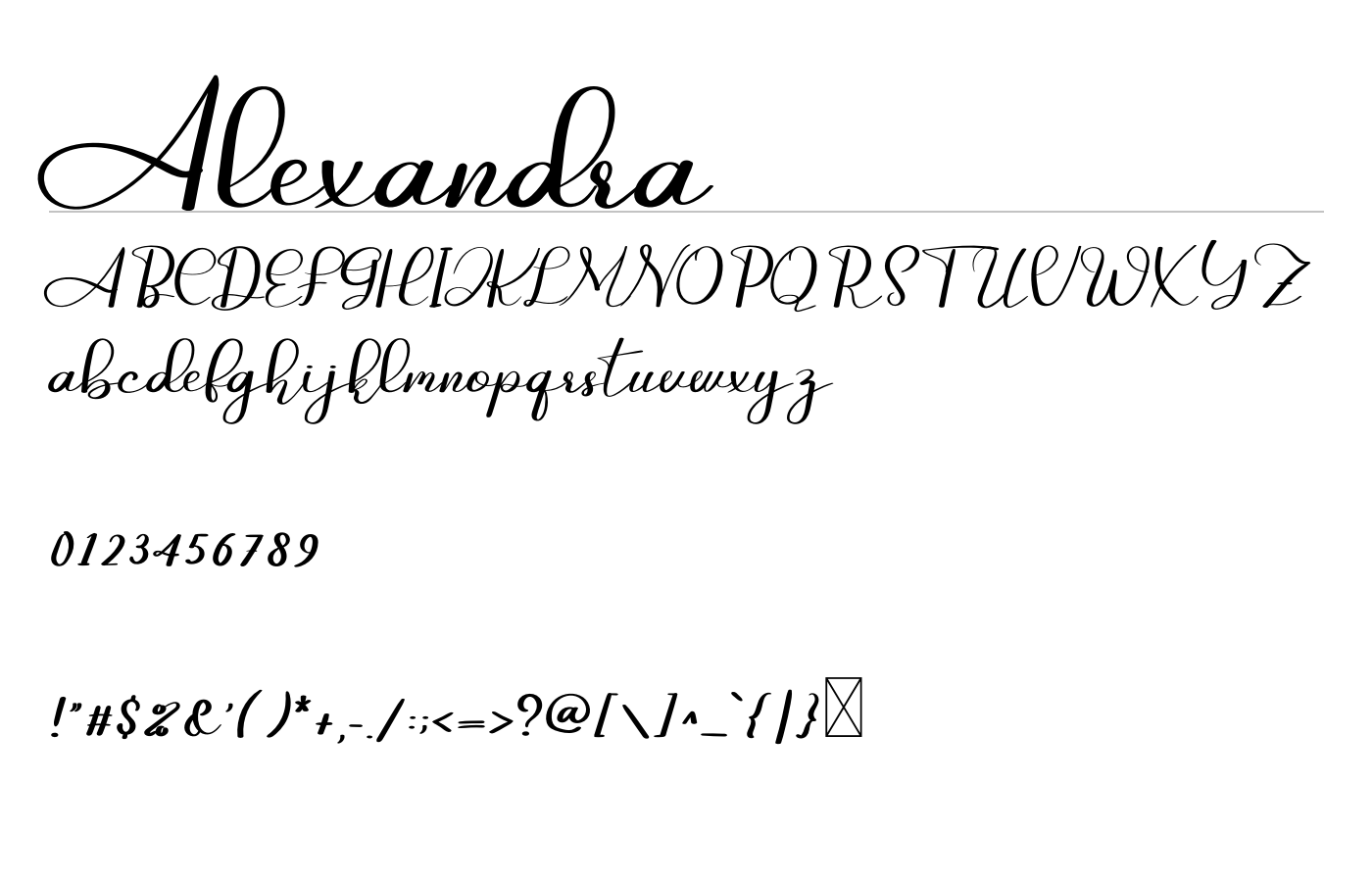
Alexandra is an elegant script font with flowing, graceful strokes that evoke a sense of sophistication and femininity. Its delicate, slightly condensed letterforms with tasteful swashes and moderate contrast make it perfect for luxury branding, wedding invitations, and stylish editorial headlines where a refined, personal touch is desired. This font’s classic yet fresh appearance adds charm and warmth to any design seeking a romantic or high-end feel.
Alexandra Font
About Alexandra Font